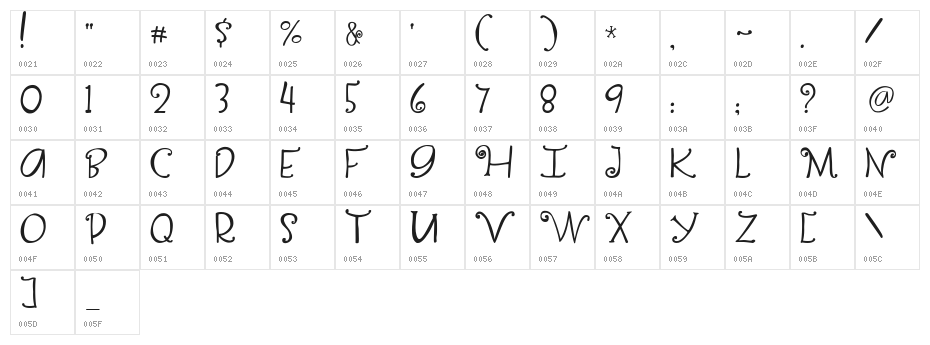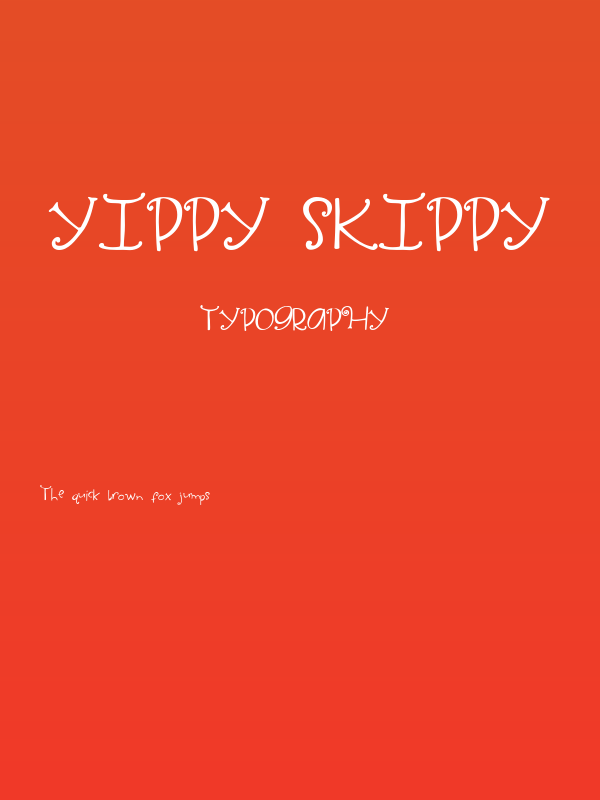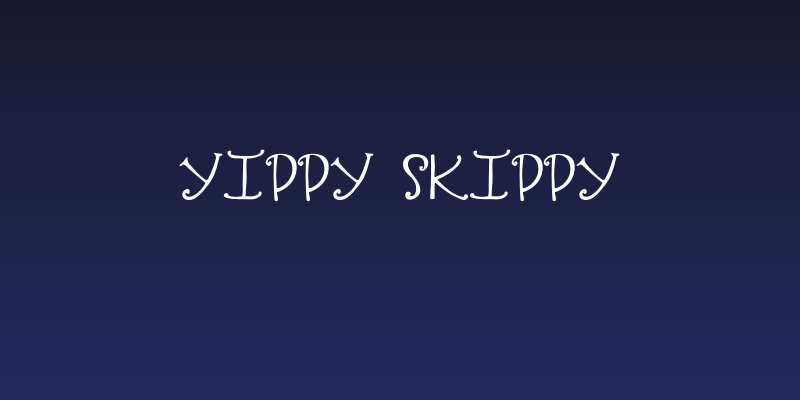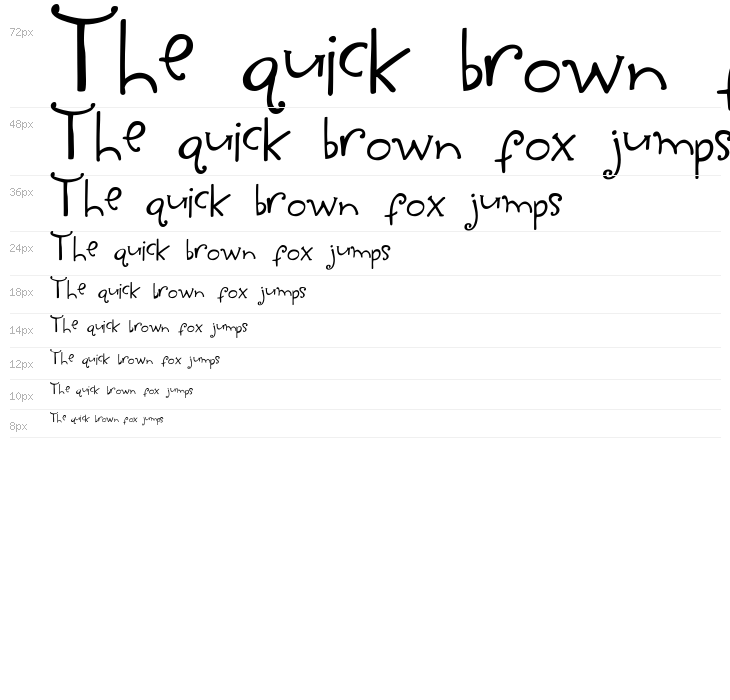
Yippy Skippy Font
Yippy Skippy Description
This playful and whimsical font features a unique blend of rounded and curly elements, giving it a lively and energetic appearance. The uppercase letters are characterized by their bold and slightly exaggerated curves, while the lowercase letters maintain a consistent flow with a touch of quirkiness. Numbers are bold and rounded, matching the overall playful theme. Special characters are creatively designed, adding to the font's charm. The font's style is reminiscent of a handwritten script, yet it maintains a structured and legible form, making it suitable for various creative applications.
Overall StyleWhimsical, Playful
Use CaseHeadlines, Logos, Creative projects
Proposed ProjectsIdeal for children's books, playful branding, greeting cards, and creative invitations.